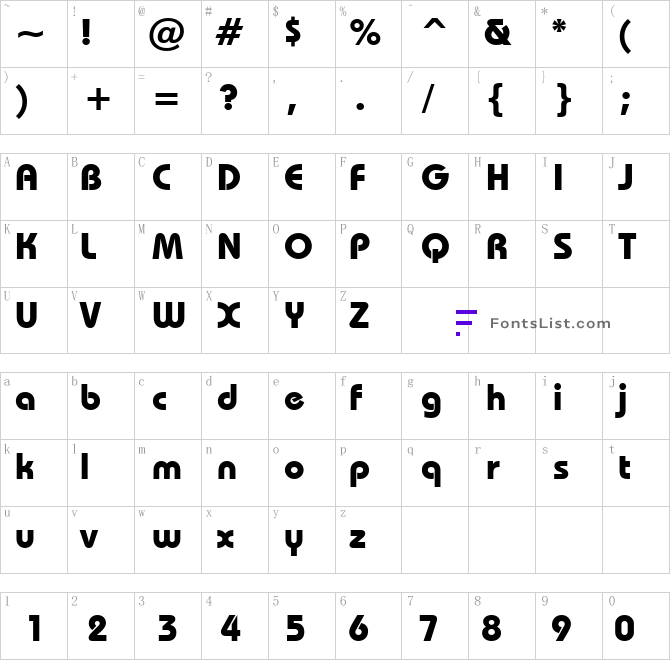
- Font Name:Bauhaus Md BT
- Subfamily:ITC Bauhaus Bold, Geometric 752
- Full Name:Bauhaus Bold BT
Bauhaus-Bold-BT.ttf is a very beautiful artistic font, Bauhaus-Bold-BT.ttf is widely used in the design and printing of various books and pictures,Bauhaus-Bold-BT.ttf has a strong visual impact,Bauhaus-Bold-BT.ttf is a commonly used font in newspapers, magazines and books, and is used in posters, e-commerce Poster design, store design, logo design, font design and other fields.Bauhaus-Bold-BT.